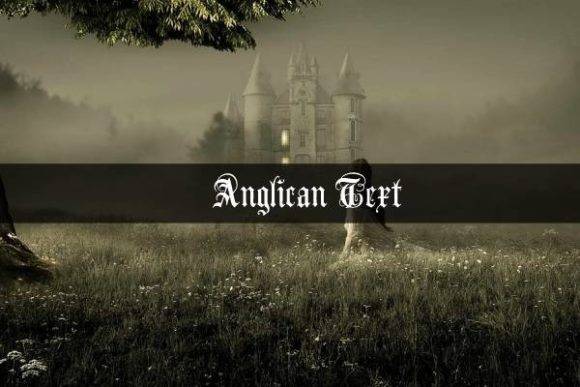
Anglican Font
Anglican is a beautiful and distinct blackletter font. It will enhance your craft with its sharp, elegant and assertive appearance. This font is PUA encoded which means you can access all of the glyphs and swashes with ease. Created by Peter Wiegel